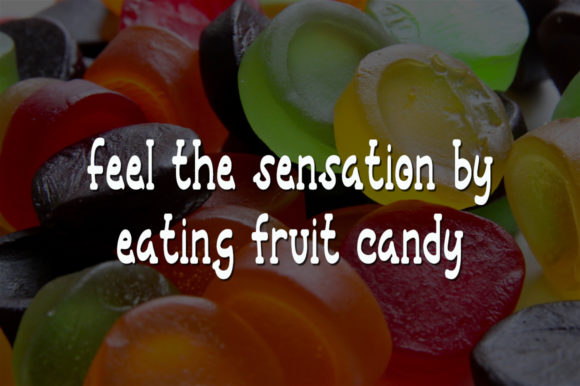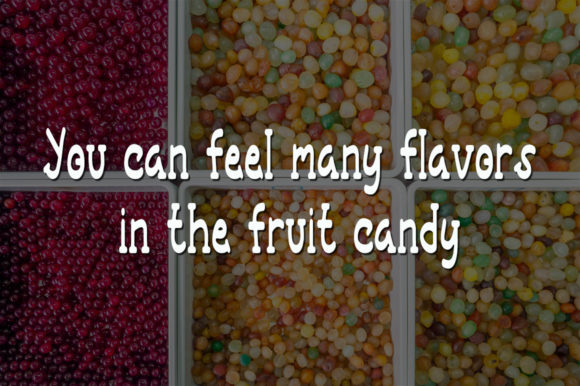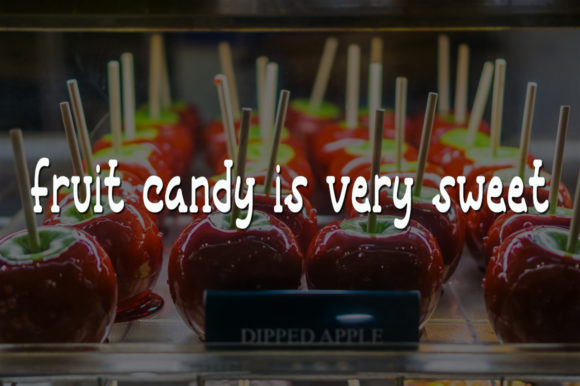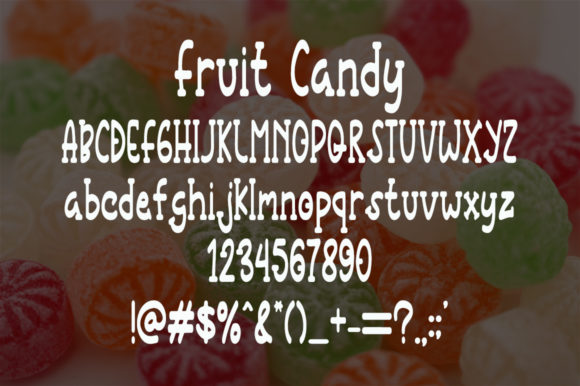
The Sweet Spot: Discovering the Charm of Fruit Candy Font
I’ll never forget the time I was working on a children’s party invitation design. The theme was a colorful garden party, and I was determined to make it perfect. But, as I was scrolling through my font library, I just couldn’t find the right fit. That’s when I stumbled upon Fruit Candy Font. It was love at first sight! 🎉 This simple yet playful handwritten font instantly captured the whimsical feel I was going for. In this article, I’ll share my experience with Fruit Candy Font, its features, and how to make the most of it in your designs.
A Personal Review: The Good, the Great, and the Quirks
- ✨ Playful and child-friendly: Fruit Candy Font is perfect for designs that require a fun and youthful vibe.
- ✅ Easily readable: Despite its playful nature, the font remains clear and easy to read, even at smaller sizes.
- 💕 Versatile: It pairs well with a variety of design styles, from simple and minimalist to colorful and elaborate.
While Fruit Candy Font is amazing for many projects, there are a few things to keep in mind:
- 🤔 Limited use in formal designs: Due to its playful nature, it might not be the best fit for more formal or professional projects.
- ⚠️ Not ideal for long texts: While readable, it’s primarily designed for headlines and short texts, rather than lengthy paragraphs.
Fruit Candy Font comes with a range of OpenType features and glyphs that can enhance your designs. These may include stylistic alternates, ligatures, and swashes. To access these features:
Fruit Candy Font was created with the intention of capturing the sweet and playful essence of childhood. Inspired by colorful candies, playful garden themes, and the whimsy of children’s literature, this font brings a dash of fun to any design project. The designer aimed to create a font that was not only cute but also versatile and easy to read.
| Font Name | Fruit Candy Font |
| Author | rangkaiaksara |
Q: Does Fruit Candy Font support OpenType features?
A: Yes, Fruit Candy Font comes with a range of OpenType features that can enhance your designs, including possible stylistic alternates and ligatures.
Q: Can I use Fruit Candy Font for children’s book titles?
A: Absolutely! Fruit Candy Font is perfect for children’s book titles, party invitations, and any project requiring a playful and youthful vibe.